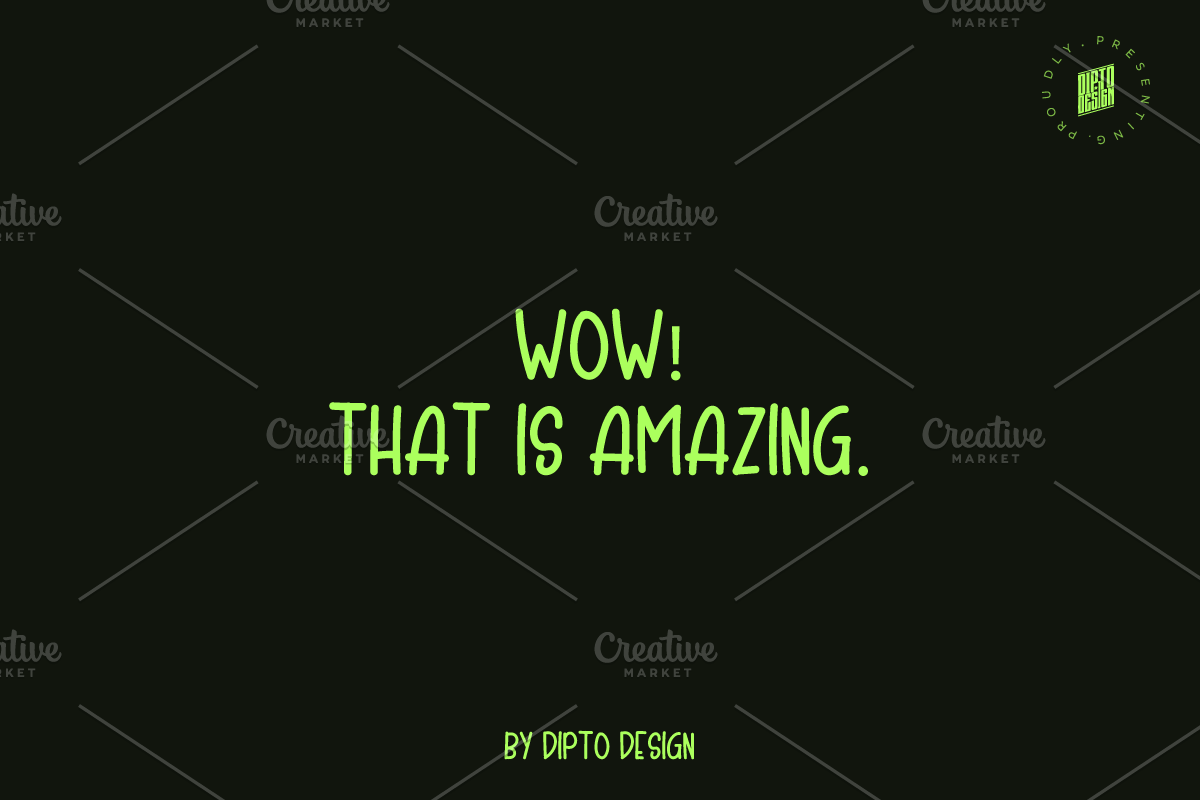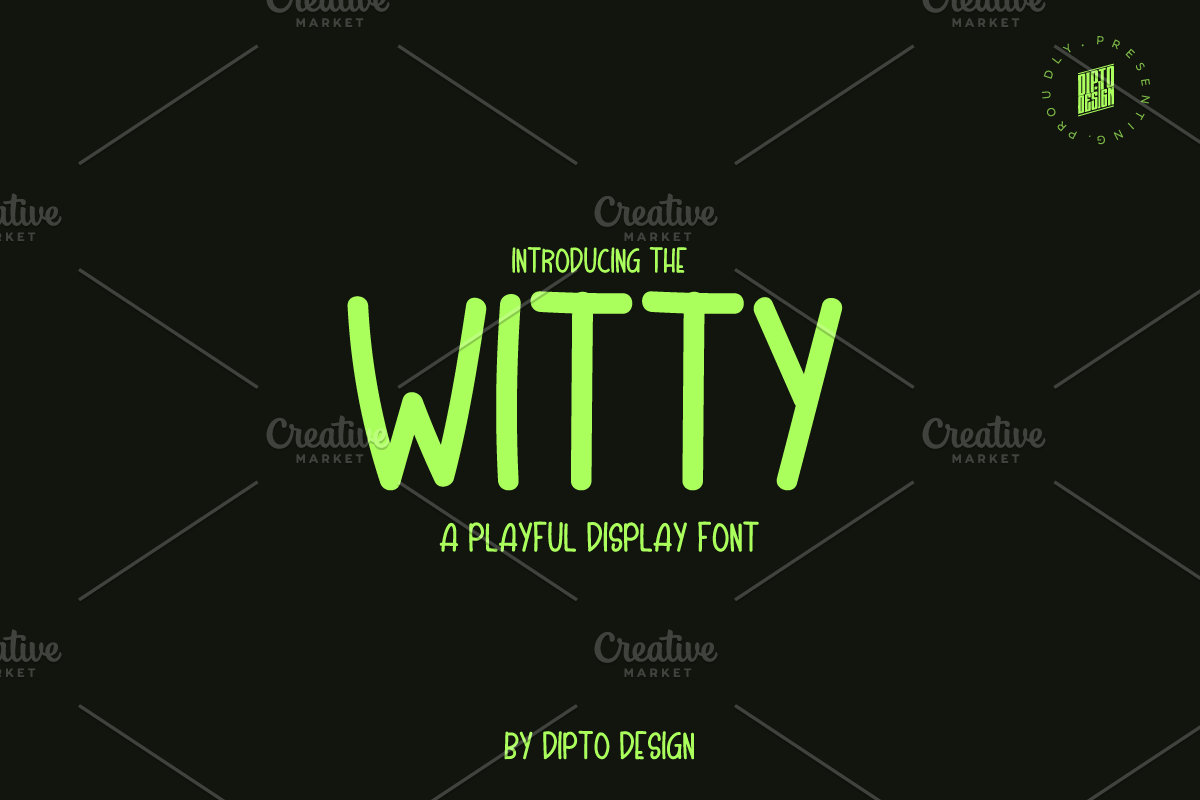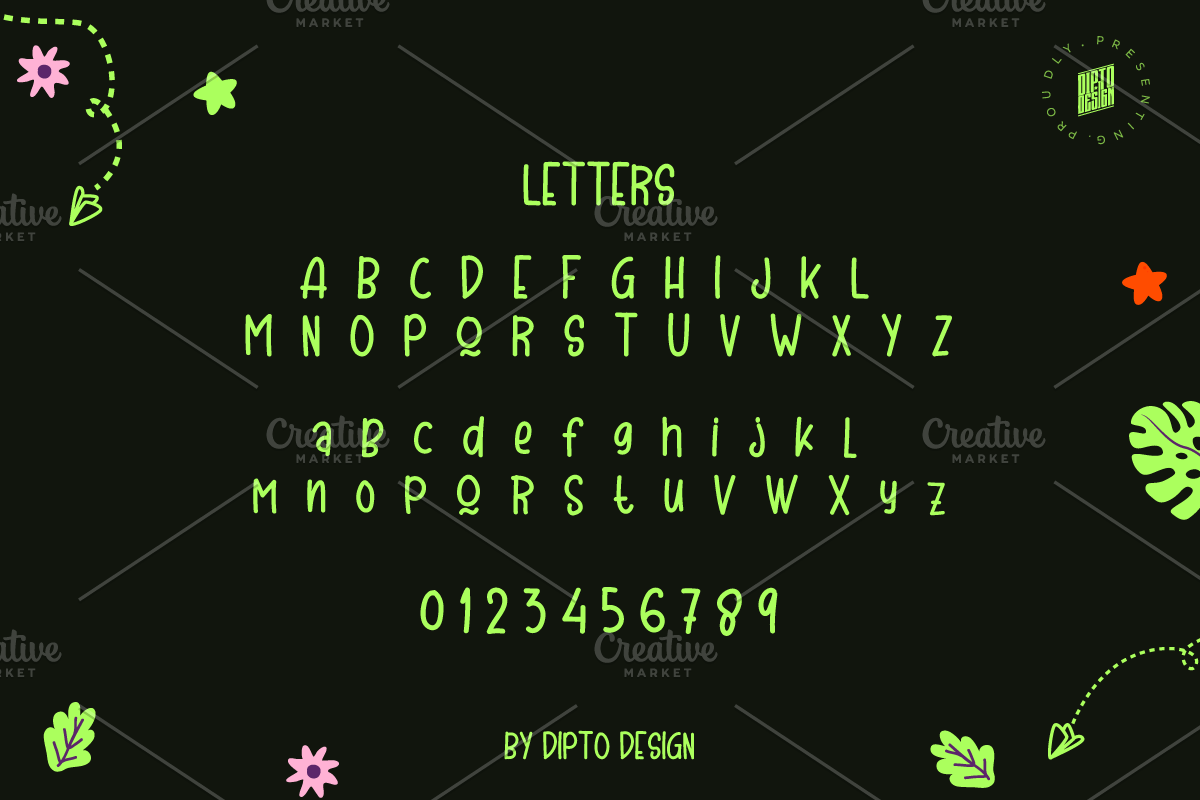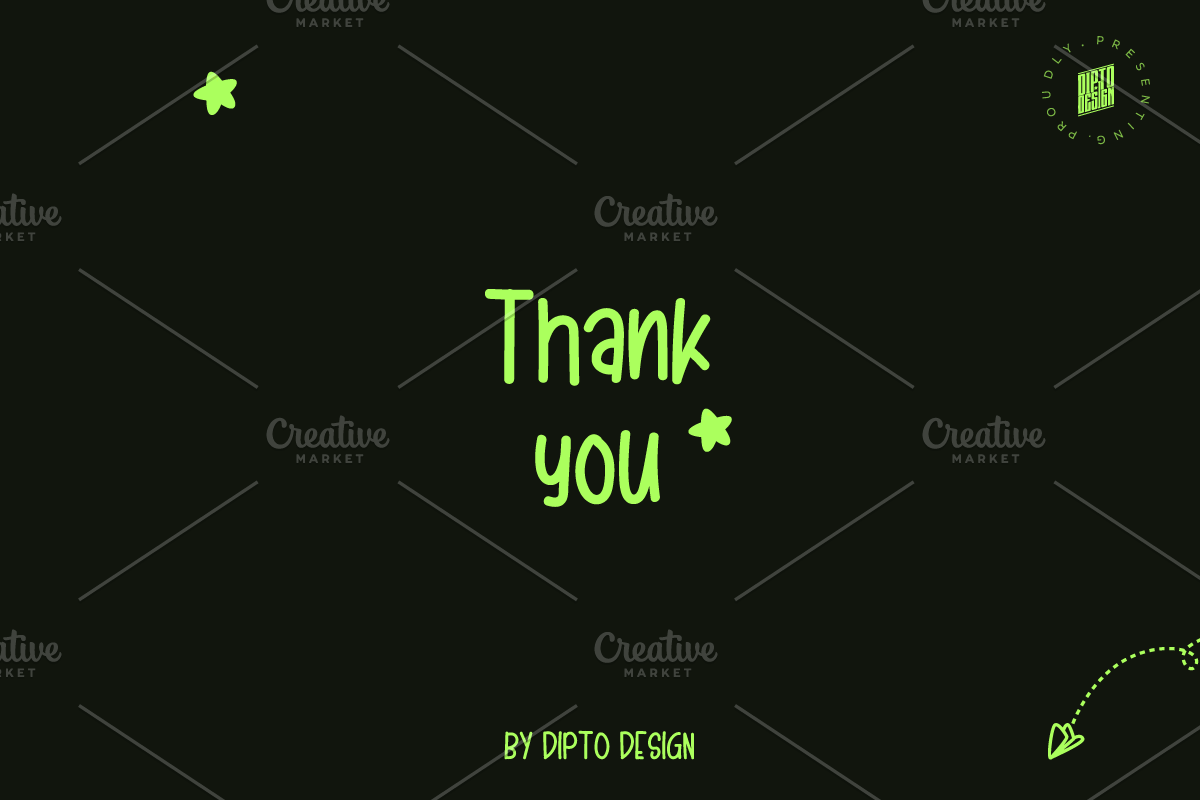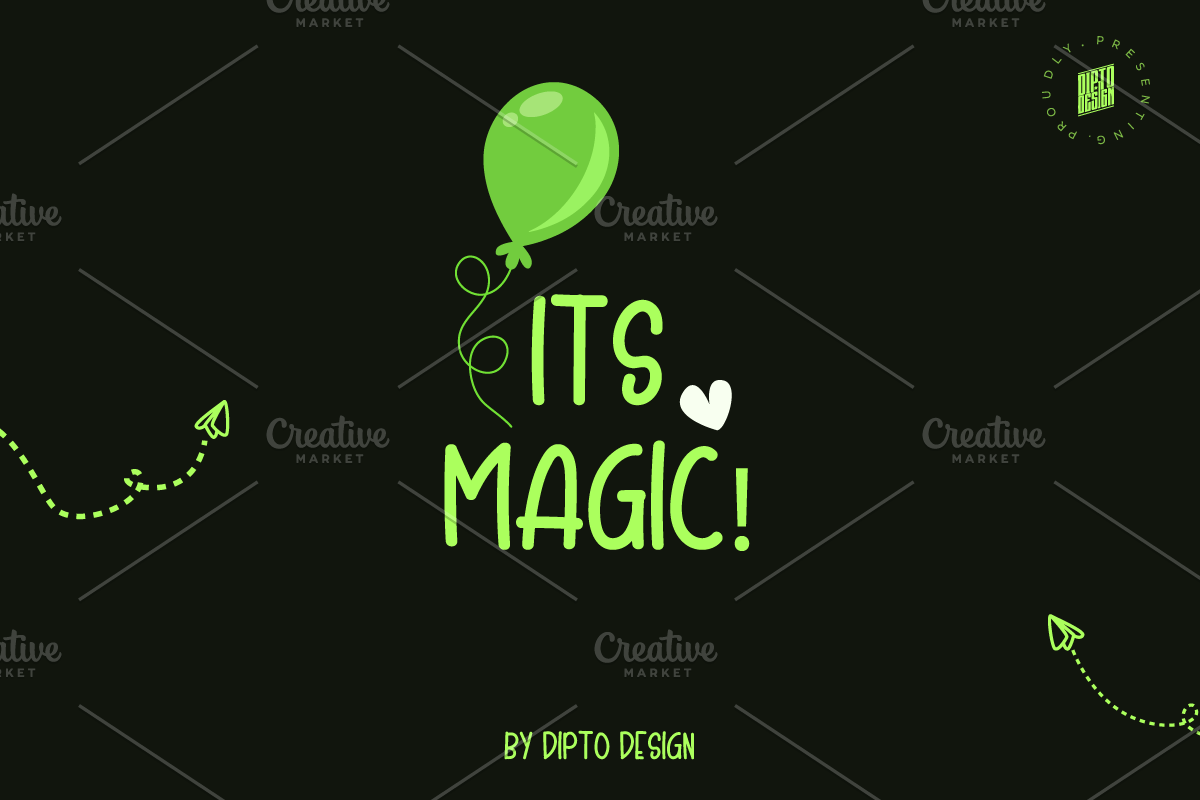
Witty-A Playful Font
Introducing Witty – a playful display font that adds a touch of whimsy to your designs! Perfect for injecting humor into logos, headlines, or any project that craves a lighthearted vibe. With its dynamic strokes and charming characters, Witty strikes the right balance between playfulness and professionalism.
Can be used for the design of poster, Big sale sign, greeting card , packaging designs, New Year design and so on with the winter season concept.